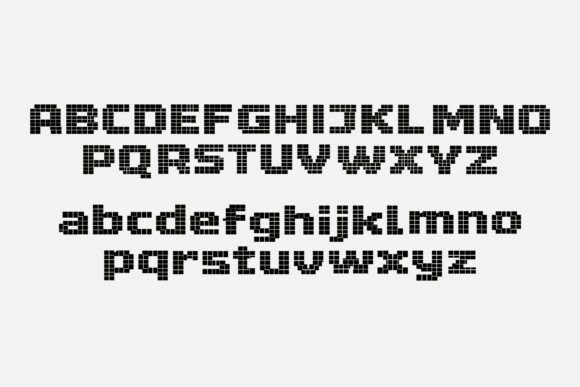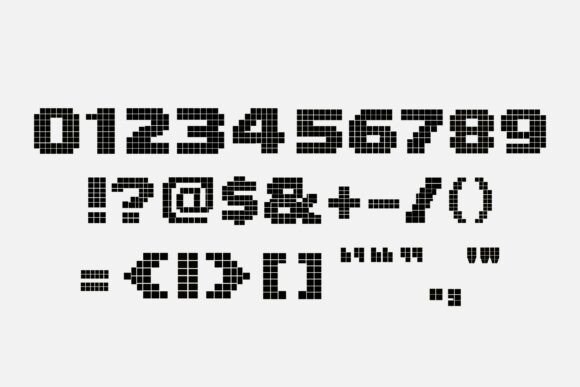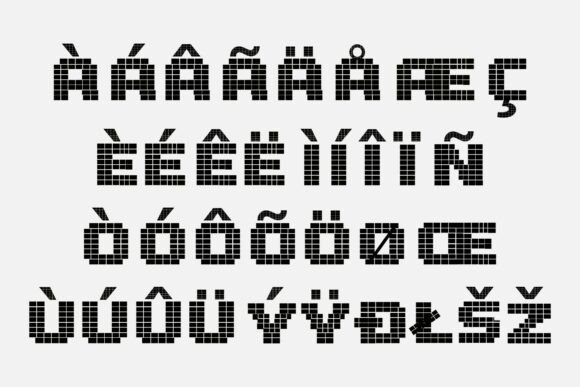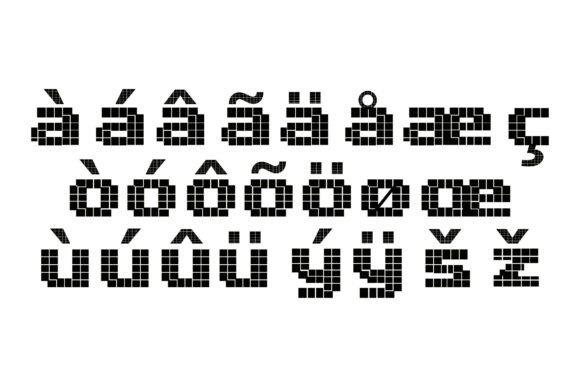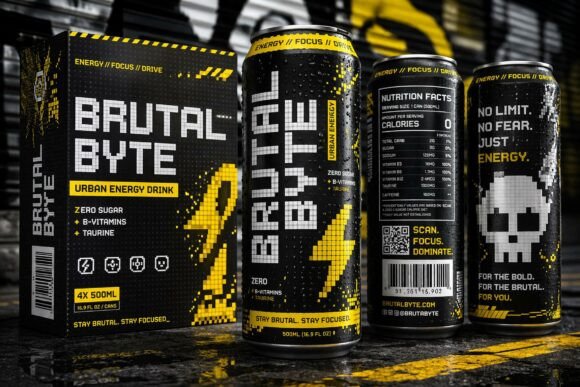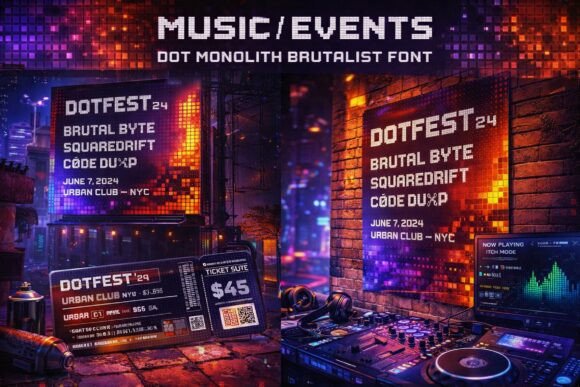
Introducing Dot Monolith Brutal: The Ultimate Pixel Grid Display Font
In the world of typography, few fonts have made a statement as bold as Dot Monolith Brutal. This pixel grid display font is a game-changer for designers and crafters looking for a strong, industrial, and futuristic look. Inspired by the raw Brutalism aesthetics, Dot Monolith Brutal is perfect for streetwear branding, tech UI, posters, gaming visuals, and experimental design projects.
The Inspiration Behind Dot Monolith Brutal
Brutalism, an architectural and design movement that emerged in the 1950s, is characterized by its use of raw concrete, steel, and glass. The style is known for its rugged, industrial look, which has influenced various design disciplines, including typography. Dot Monolith Brutal takes its cue from this aesthetic, translating its principles into a bold, modular display font.
Key Features of Dot Monolith Brutal
- Pixel Grid System: Dot Monolith Brutal is built on a structured pixel grid system, which gives it a precise, digital look. This feature makes it ideal for tech-related projects, such as UI design, gaming visuals, and digital art.
- Sharp Geometric Forms: The font features sharp, geometric forms that give it a strong, industrial look. The clean lines and precise curves make it perfect for designs that require a bold statement.
- High Visual Impact: Dot Monolith Brutal is designed to make a statement. Its bold, pixelated design ensures that your message gets noticed, making it perfect for posters, billboards, and other attention-grabbing applications.
Use Cases for Dot Monolith Brutal
Dot Monolith Brutal is a versatile font that can be used in various design projects, including:
- Streetwear Branding: The font’s bold, industrial look makes it perfect for streetwear branding, including logos, labels, and packaging.
- Tech UI: The pixel grid system and sharp geometric forms make Dot Monolith Brutal an excellent choice for tech UI design, including mobile apps, websites, and software interfaces.
- Posters and Billboards: The font’s high visual impact makes it ideal for posters, billboards, and other attention-grabbing applications.
- Gaming Visuals: Dot Monolith Brutal’s bold, pixelated design makes it perfect for gaming visuals, including logos, menus, and HUD elements.
- Experimental Design Projects: The font’s unique look and feel make it an excellent choice for experimental design projects, including art installations, performances, and interactive experiences.
Why Choose Dot Monolith Brutal?
Dot Monolith Brutal is more than just a font – it’s a design statement. Here are some reasons why you should choose Dot Monolith Brutal for your next project:
- Unique Look: The font’s bold, pixelated design ensures that your project stands out from the crowd.
- Versatility: Dot Monolith Brutal can be used in various design projects, from streetwear branding to tech UI.
- High Readability: The font’s clean lines and precise curves ensure high readability, even at small sizes.
| Font Name | Dot Monolith Brutal Font |
| Author | artstoreid |
Dot Monolith Brutal is a game-changing font that can elevate your design projects to the next level. Its bold, industrial look, combined with its versatility and high readability, make it an excellent choice for designers and crafters. Whether you’re working on a streetwear branding project, a tech UI design, or an experimental art installation, Dot Monolith Brutal is the perfect font for you.